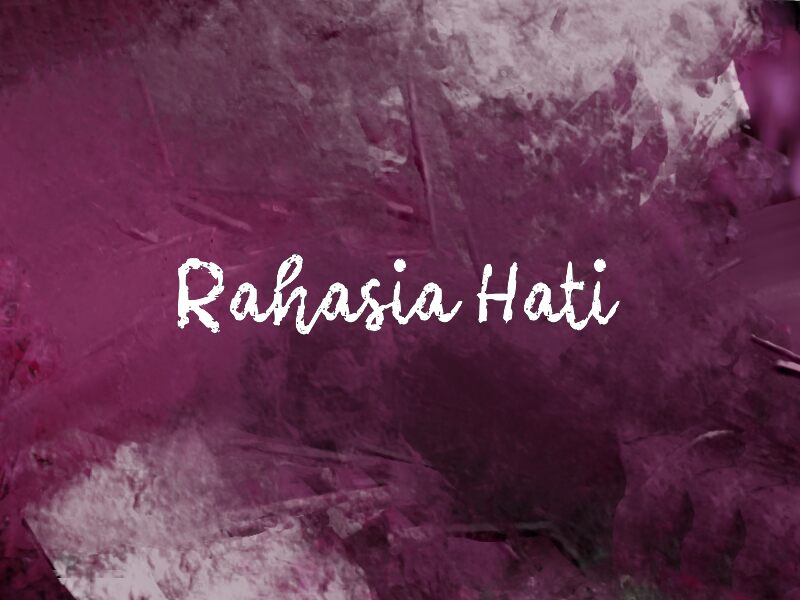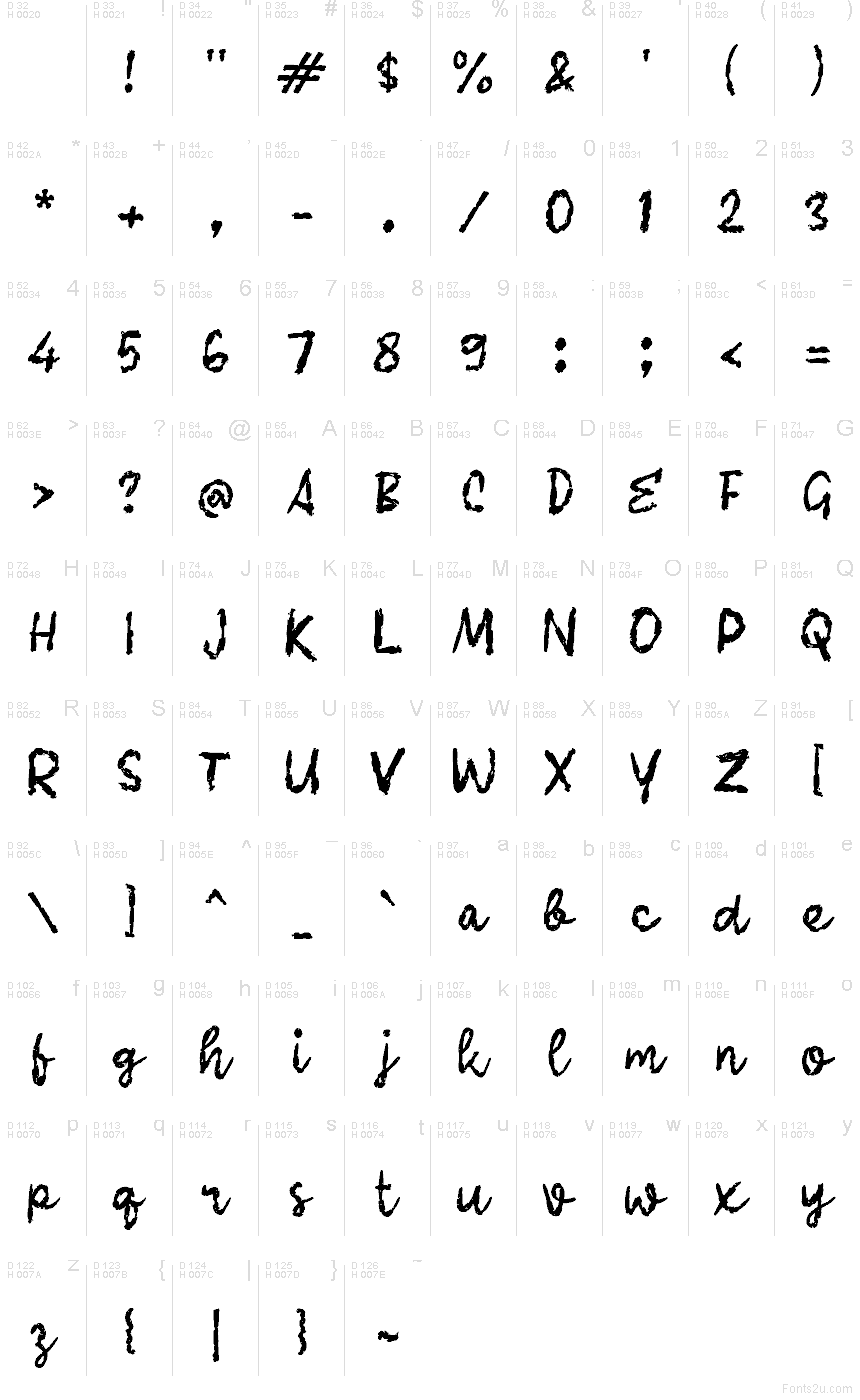
Rahasia Hati
Rahasia Hati font by wep is a free brush script typeface with a raw, grainy texture that feels like ink dragged across rough paper. Each stroke is slightly broken and speckled, giving the letters a whispered, secret-note quality that matches the name. The flowing cursive rhythm keeps it romantic and human, while the distressed edges stop it from feeling too polished or stiff.
Using Rahasia Hati, you can bring a tender, handmade touch to wedding invitations, love quotes, journal covers, mood boards, social media graphics, and soft indie branding. This free font shines when used large enough to show off its inky texture, especially against clean, solid backgrounds. Pair it with a simple sans serif for body text to let Rahasia Hati handle all the emotional headlines and names.